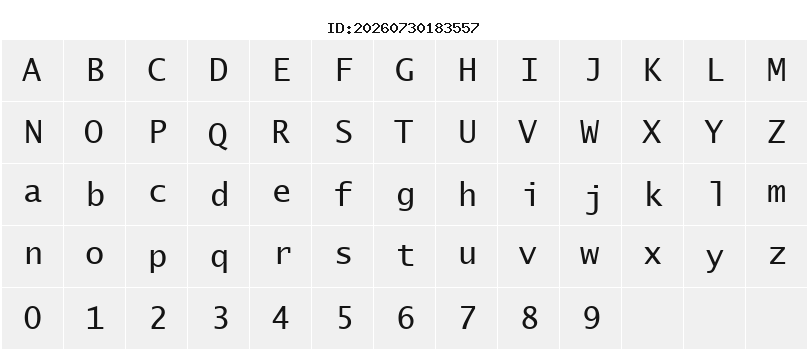
Lucida Sans Typewriter Preview
• Font Name: Lucida Sans Typewriter
• Font ID: Lucida Sans Typewriter Regular: B&H: 1991
• Full Font Name: Lucida Sans Typewriter
About Lucida Sans Typewriter.ttf
Lucida Sans Typewriter.ttf is a modern, elegant sans-serif font designed for ultimate readability and visual harmony. Perfect for branding, headlines, web design, and print materials.